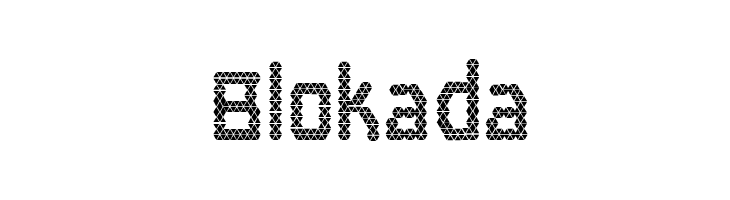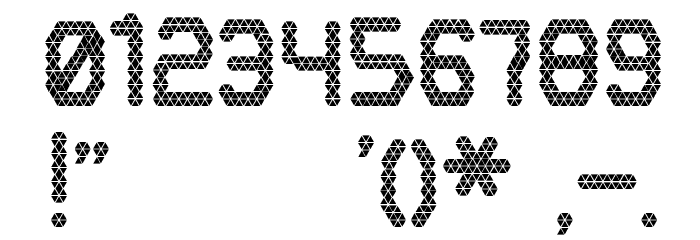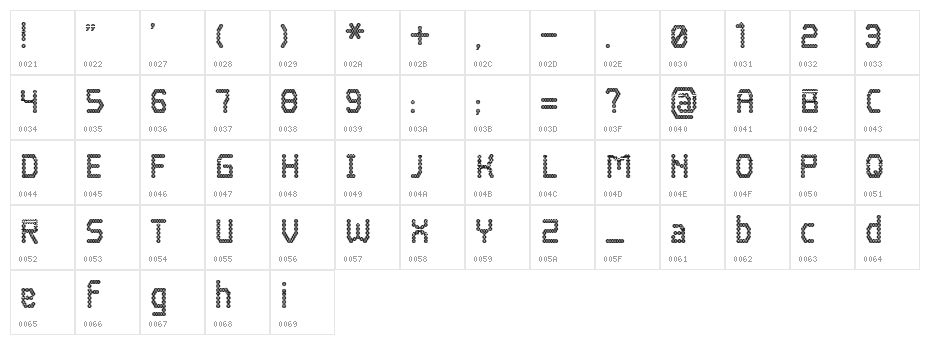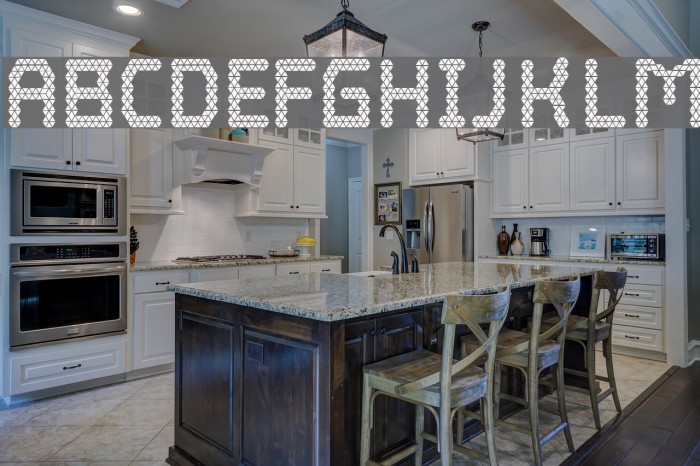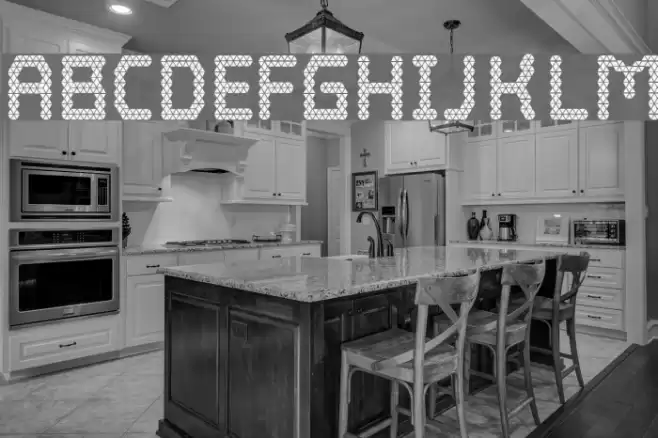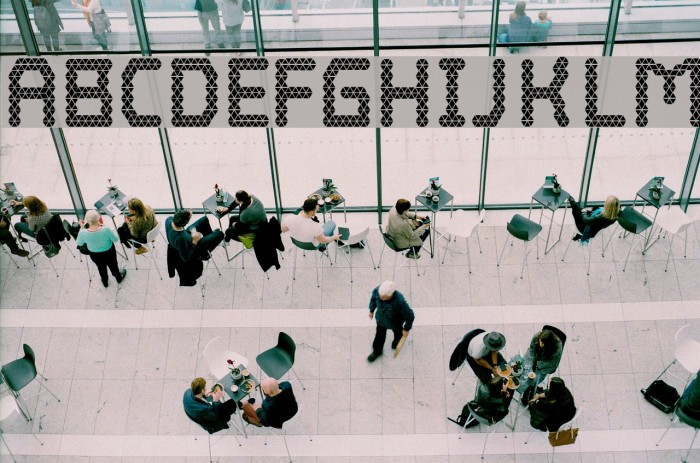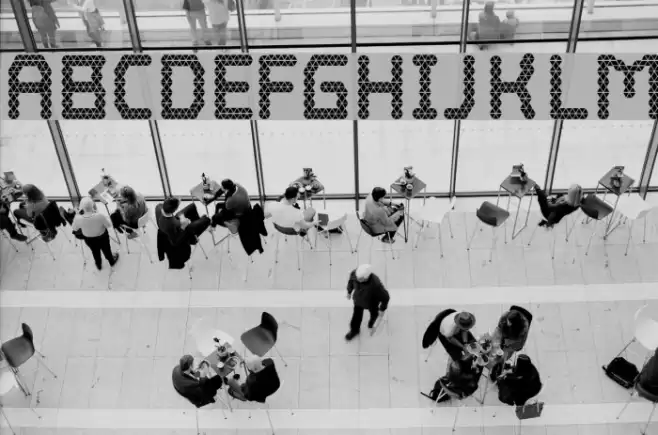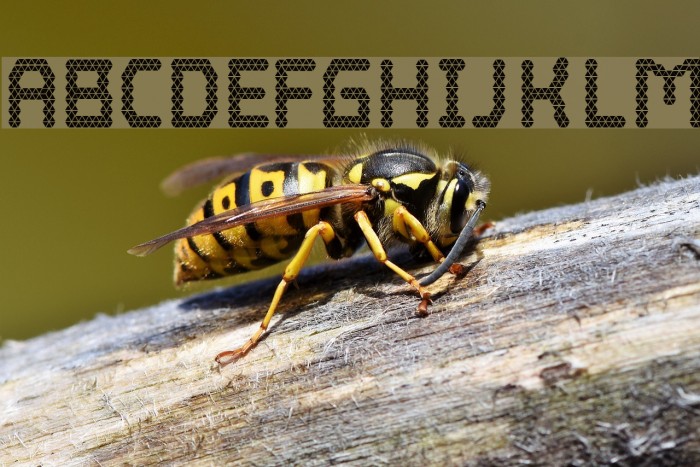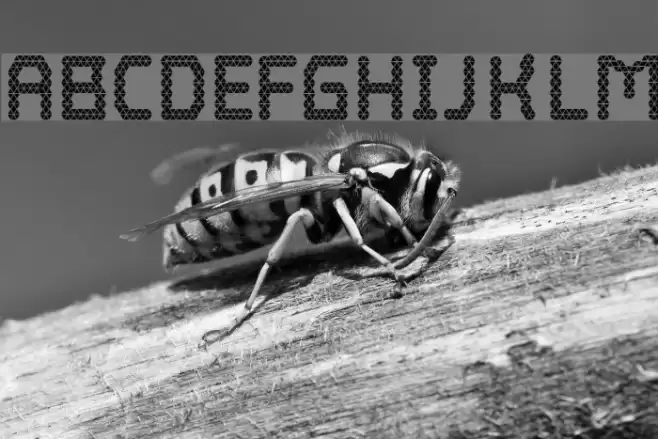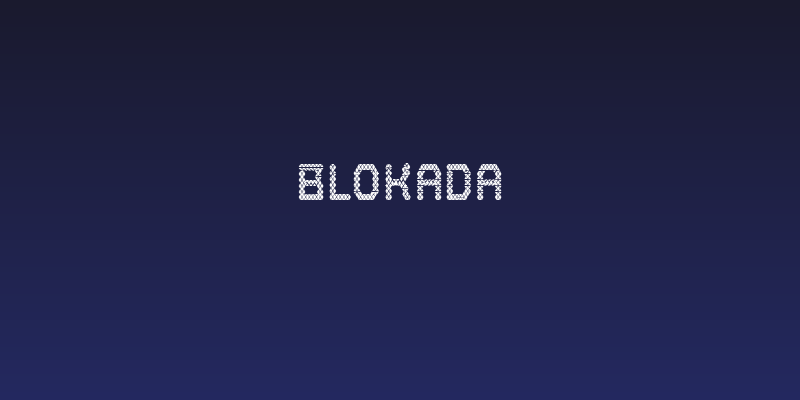
Blokada Font
Blokada Description
This font features a unique, geometric design with a pattern of small triangles filling each character. The letters are bold and have a blocky appearance, giving them a strong and impactful look. The geometric pattern adds a decorative element, making it stand out for creative projects. The characters are evenly spaced, maintaining a consistent and structured appearance. This font is ideal for projects that require a modern and artistic touch, such as posters, logos, and headlines. The combination of boldness and intricate design makes it suitable for eye-catching displays.
| Proposed Projects | Ideal for posters, logos, headlines, and creative displays. |